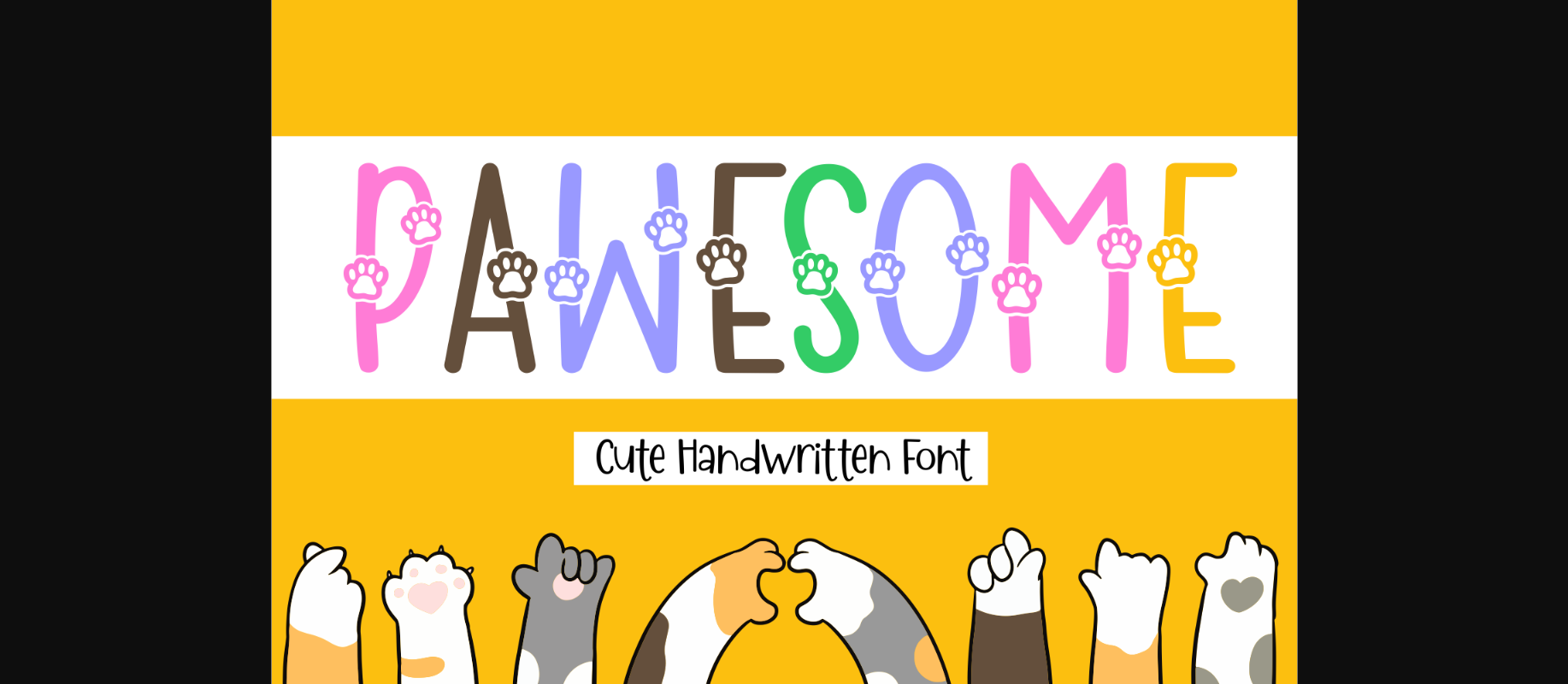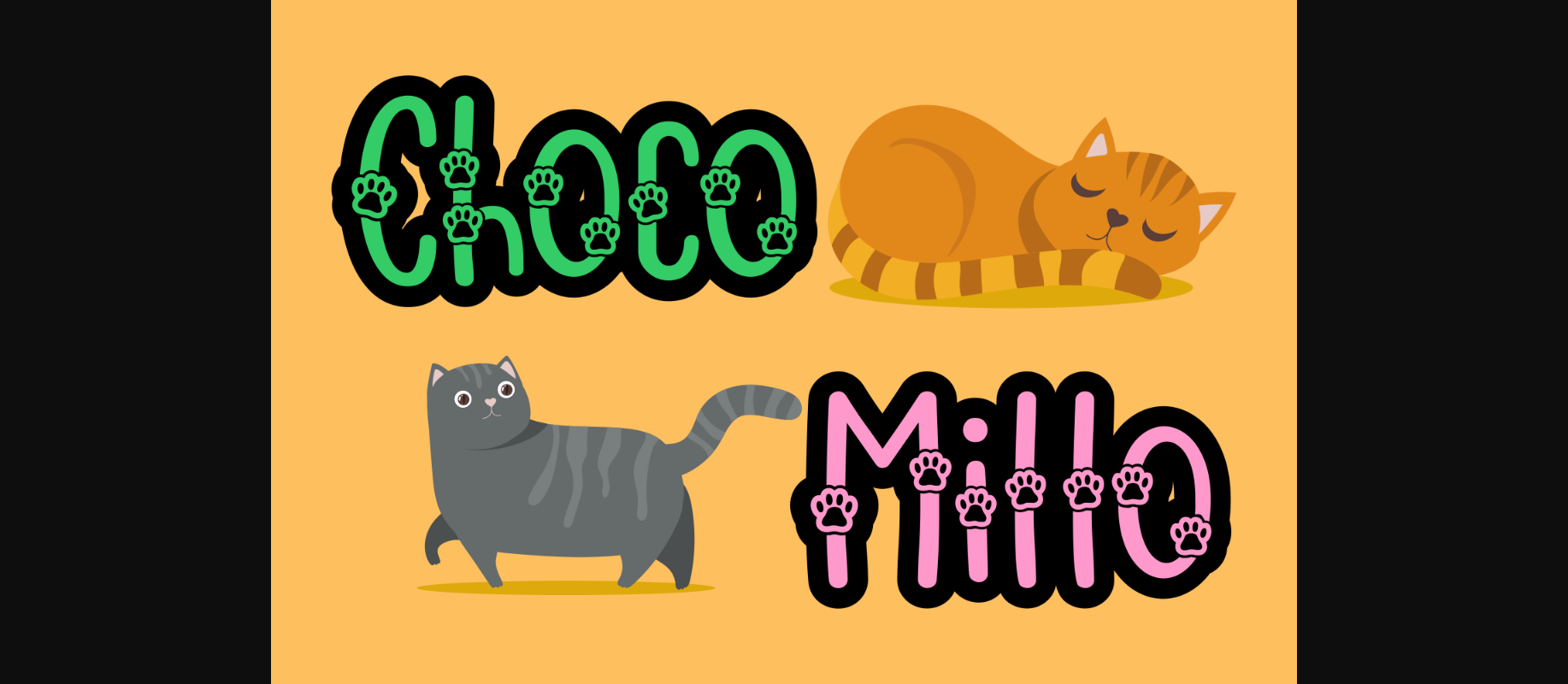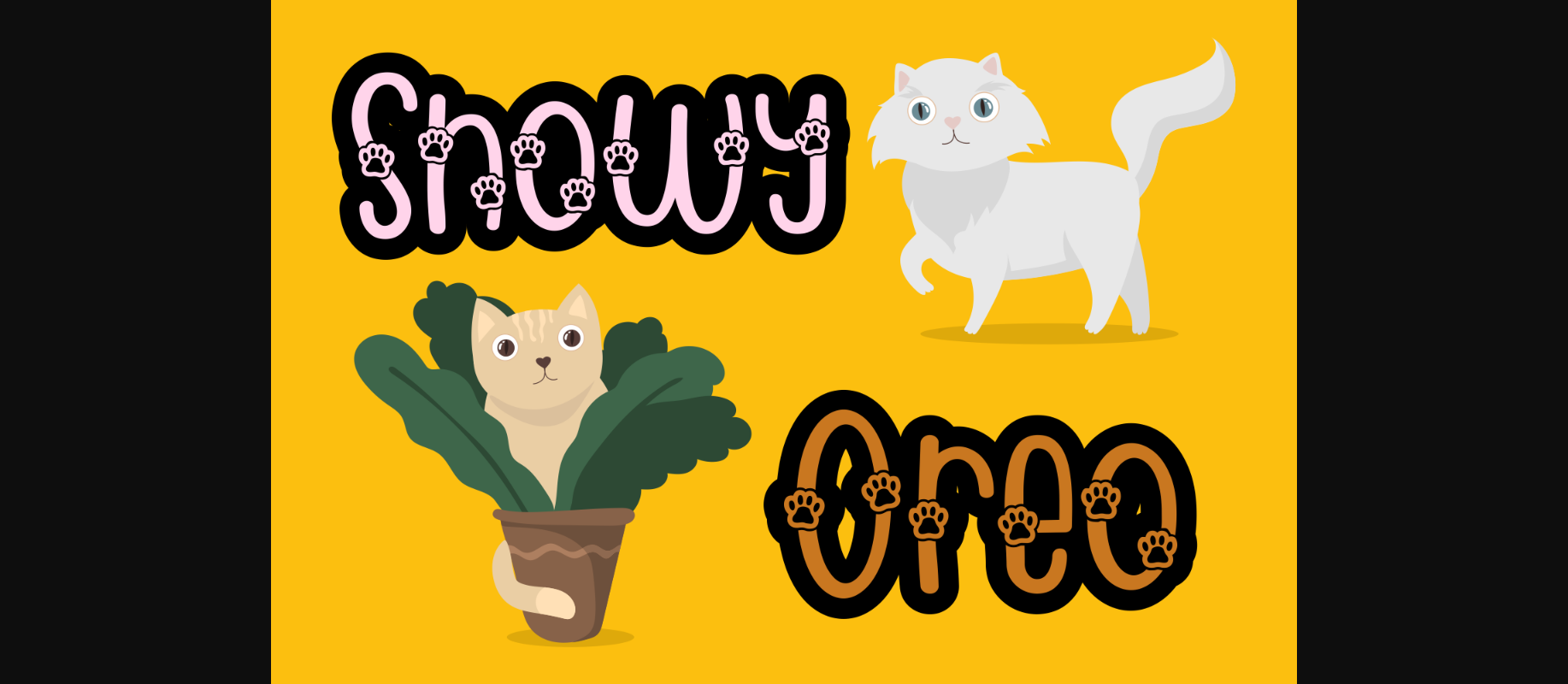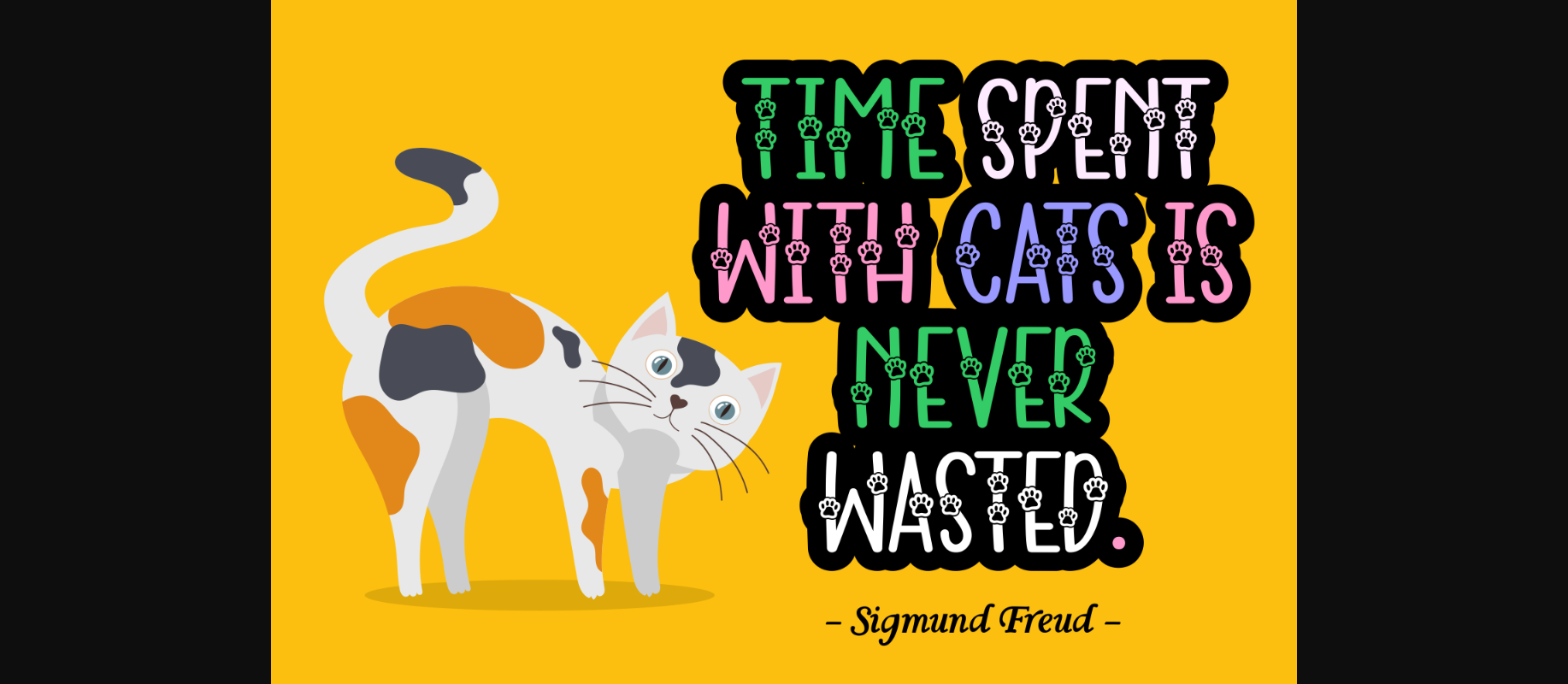
About Pawesome Font
Pawesome is a cool and fun decorative font. Whether you use it for cartoon related designs, children games or just any creation that requires a lovely touch, this font will be an amazing choice.